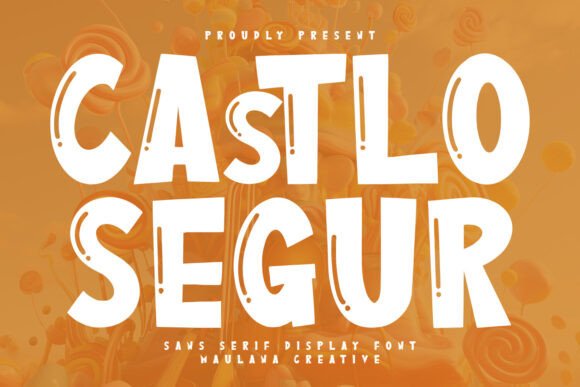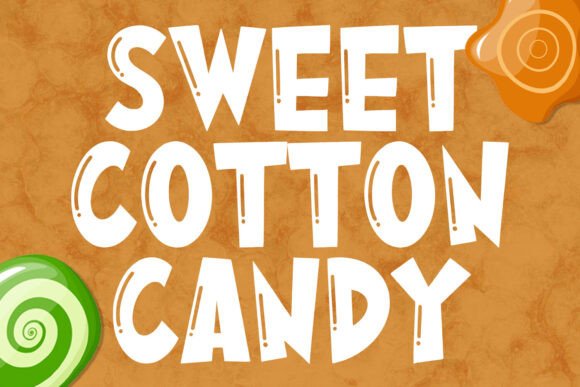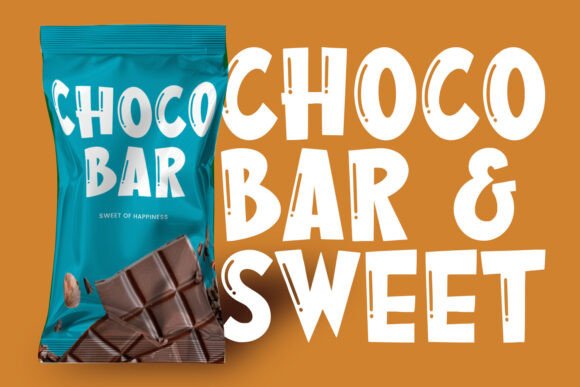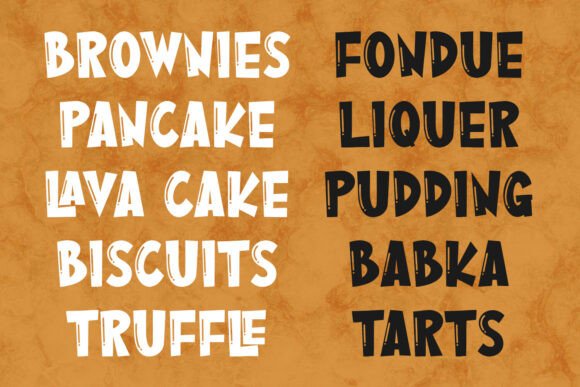
Castlo Segur Font: A Bold & Playful Sans Serif Display Font
About the Castlo Segur Font
Let us introduce you to Castlo Segur Font, where timeless design meets modern craftsmanship. Castlo Segur is a bold and bouncy sans serif display font that radiates fun and creativity. Designed with exaggerated curves and playful angles, this typeface brings a quirky charm to any project. The whimsical strokes and comic-like character shapes make it perfect for children’s designs, candy-themed branding, posters, and packaging. Its hand-crafted look adds a personalized touch, ensuring your message stands out with cheerful energy and bold confidence.
Castlo Segur Font Usage Examples
Castlo Segur Font Example